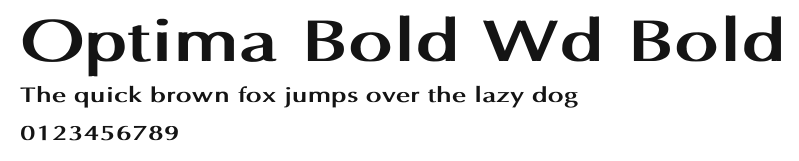
• Font Name: Optima Bold Wd Bold
• Full Font Name: Optima Bold Wd Bold
About Optima Bold Wd Bold.ttf
Optima Bold Wd Bold.ttf is a modern, elegant sans-serif font designed for ultimate readability and visual harmony. Perfect for branding, headlines, web design, and print materials.